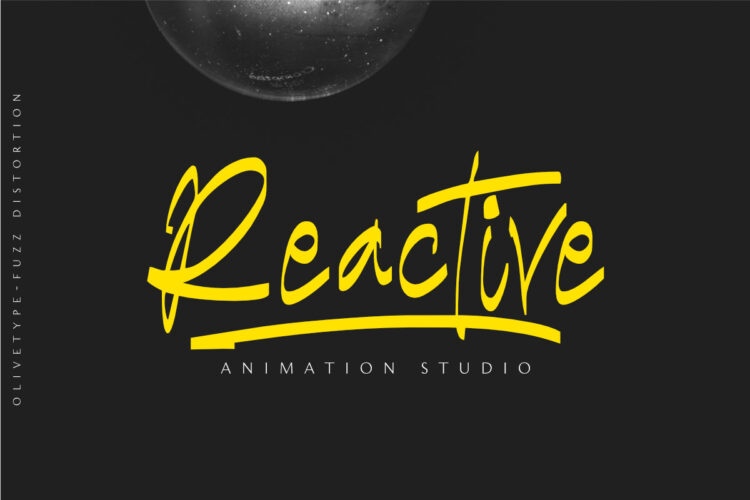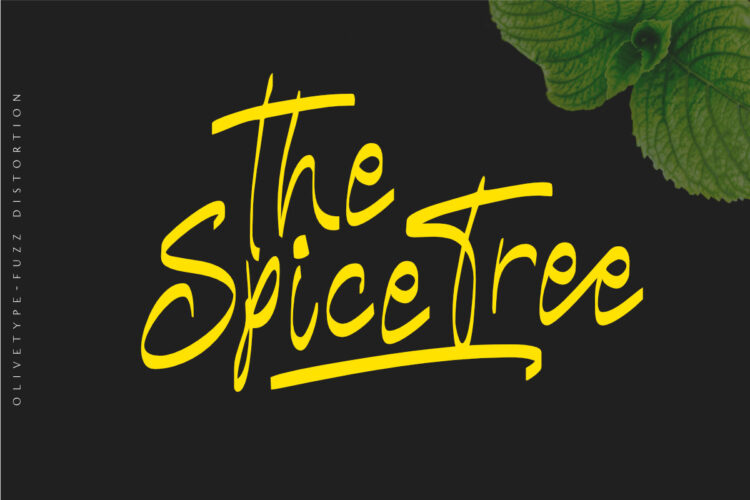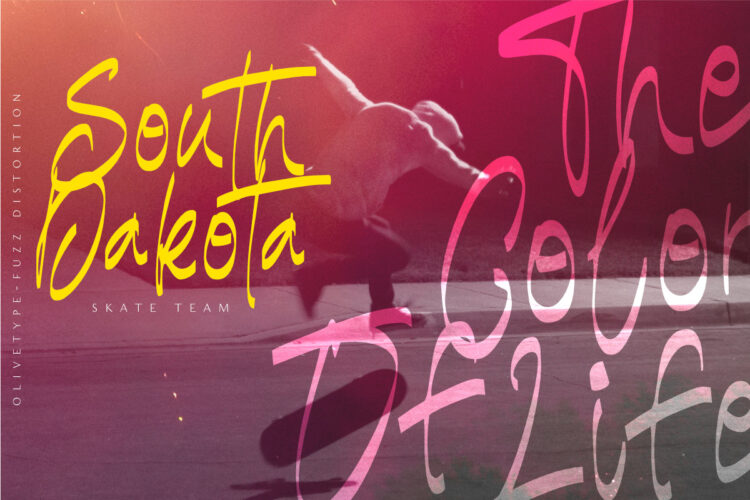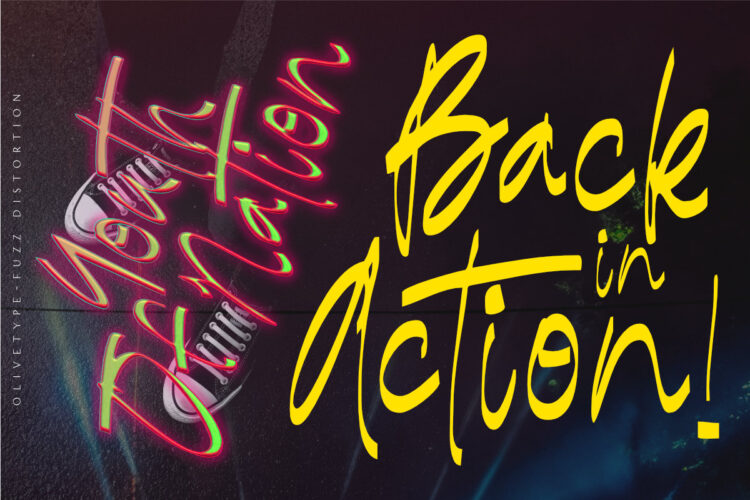
Fuzz Distortion is a handwritten brush font with a graffiti-style feel. Inspired by the characters from your old notebook, this font will provide your design project with an irresistible, natural, and yet modern feel. Used in quotes or headlines to create a different mood, this typeface also works well as an attention-grabbing header – just what you need to stand out from the crowd!